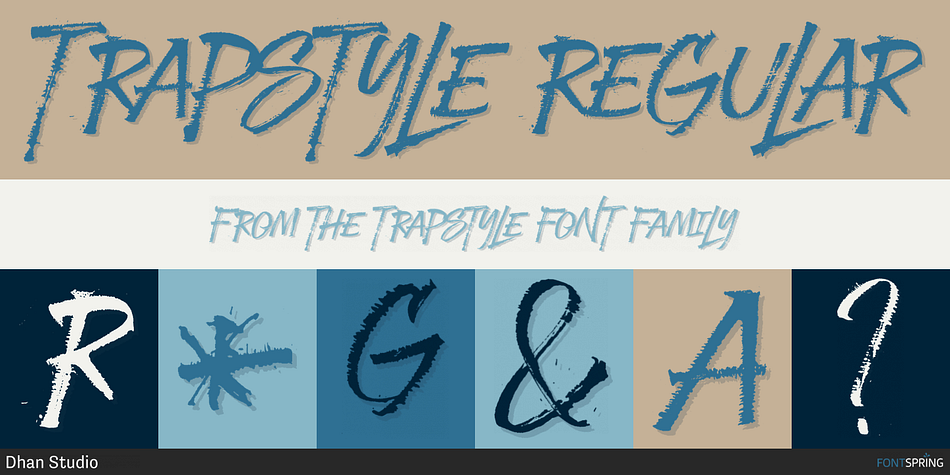
Trapstyle Regular
Trapstyle is a dingbat and grunge font family. This typeface has two styles and was published by Dhan Studio.
TRAPSTYLE is handwritten face made with Ruling Pen, this tool is usually used in calligraphy for expressive lettering.
this font will tear through your text with unmistakable energy, dynamic and spontaneous flow. To help you create the look of stunning custom hand-lettering.
TRAPSTYLE comes with alternates character, ligature, upper and lowercase characters, punctuation, numerals. Also included is a bonus extras swashes, handmade designed to perfectly for headlines and short texts.
Use it for magazines, t-shirt, packaging, logos, advertising, quotes, branding, posters, editorials, cover artwork, movies, websites, etc